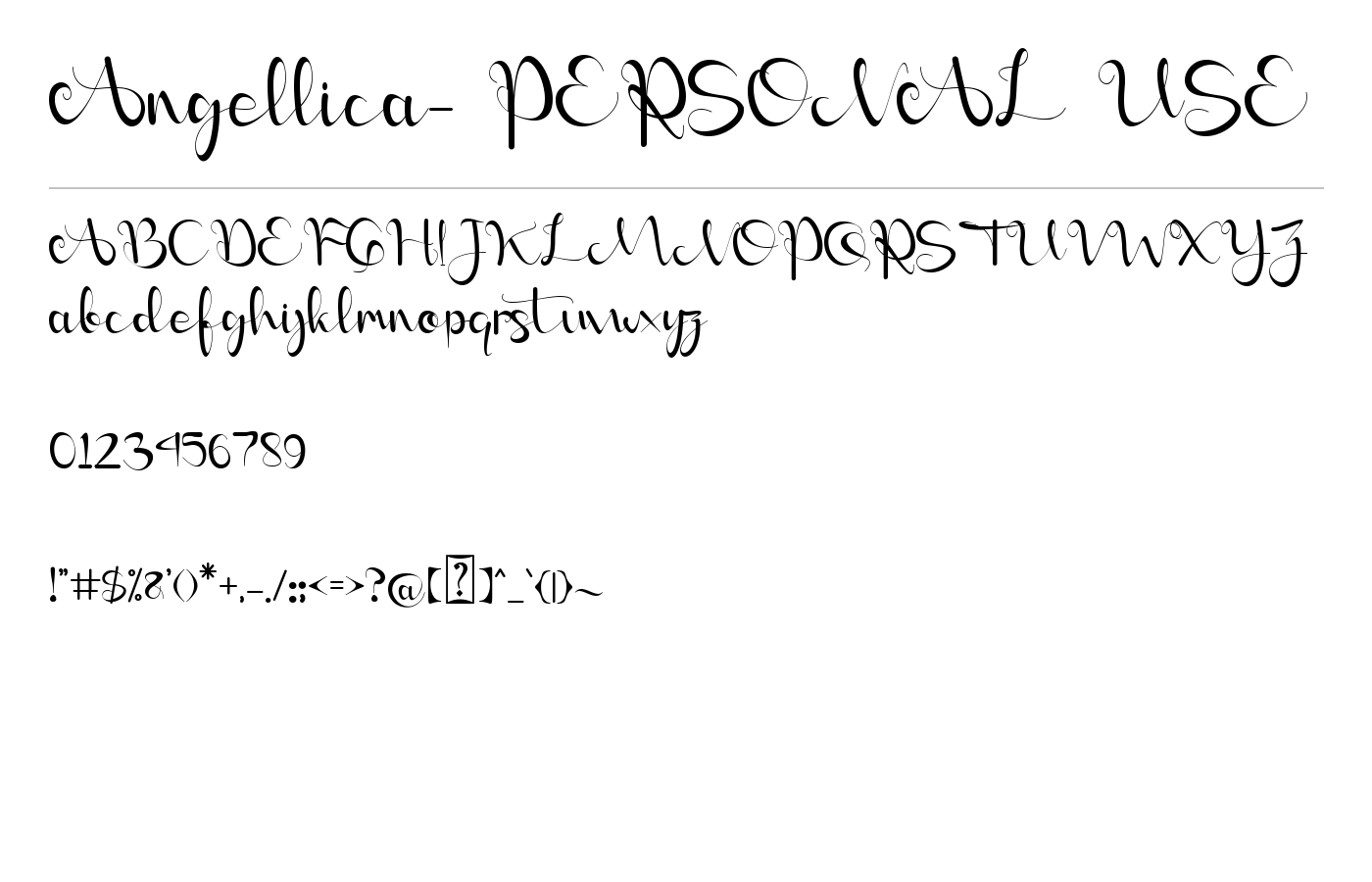
Angellica is a playful, decorative script font with a delicate and elegant flair, featuring thin, flowing strokes and whimsical curls that create a charming, hand-drawn feel. Its light weight and unique letterforms make it perfect for personal projects, invitations, and branding that seeks a feminine, artistic touch. This font works best in headlines and decorative contexts where its intricate style can shine without compromising readability.
Angellica- PERSONAL USE Font
About Angellica- PERSONAL USE Font
| Font family | Angellica- PERSONAL USE Font |
| Designer | ArkristLetter |